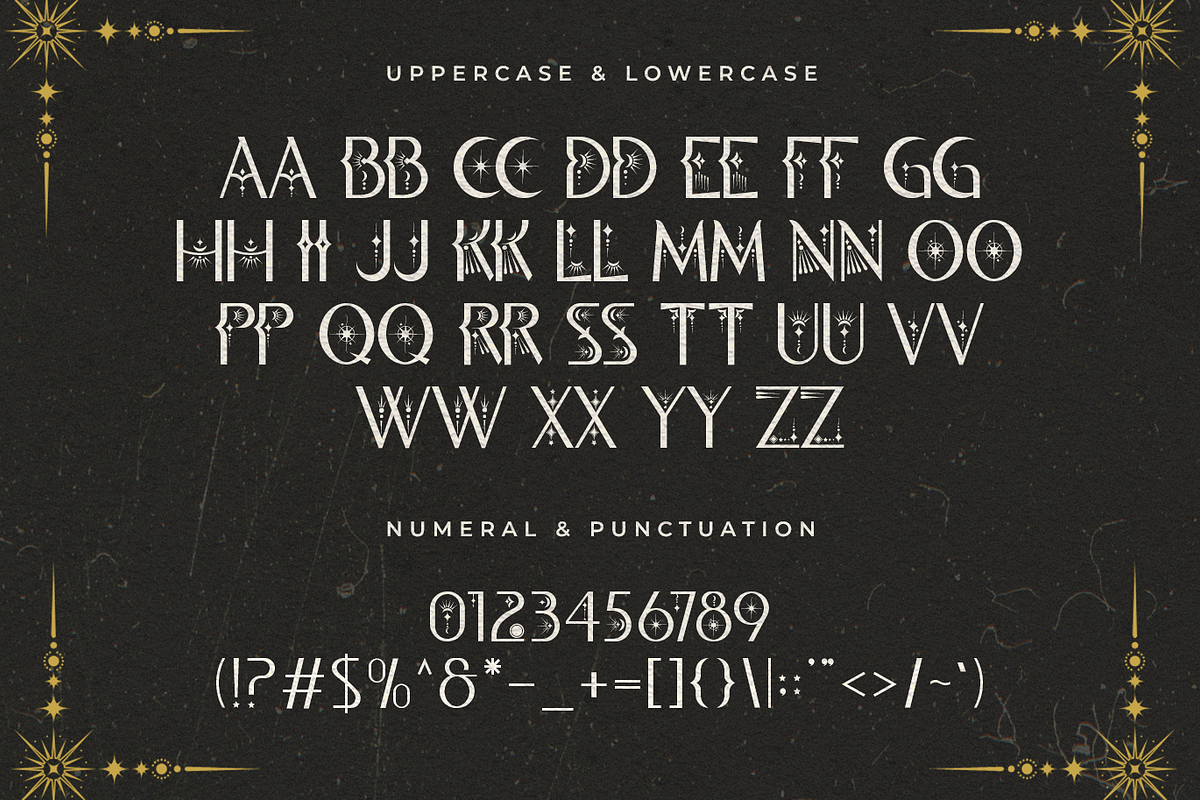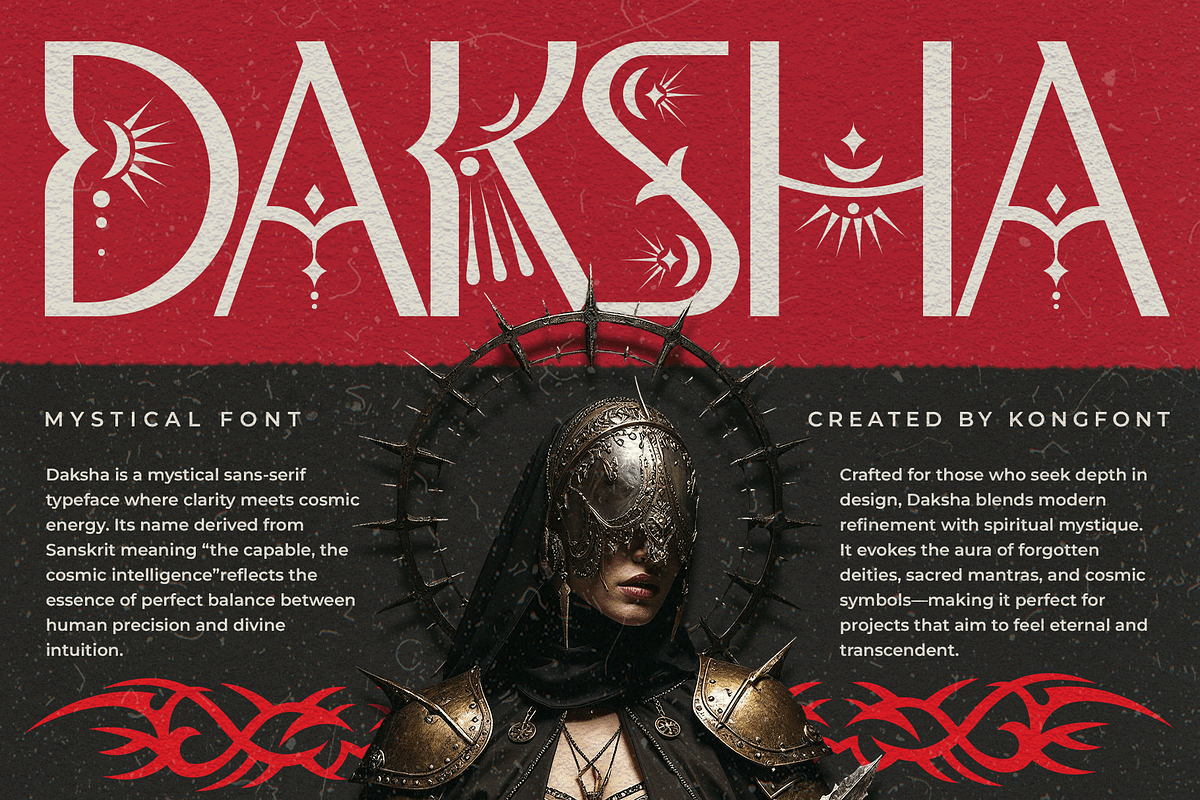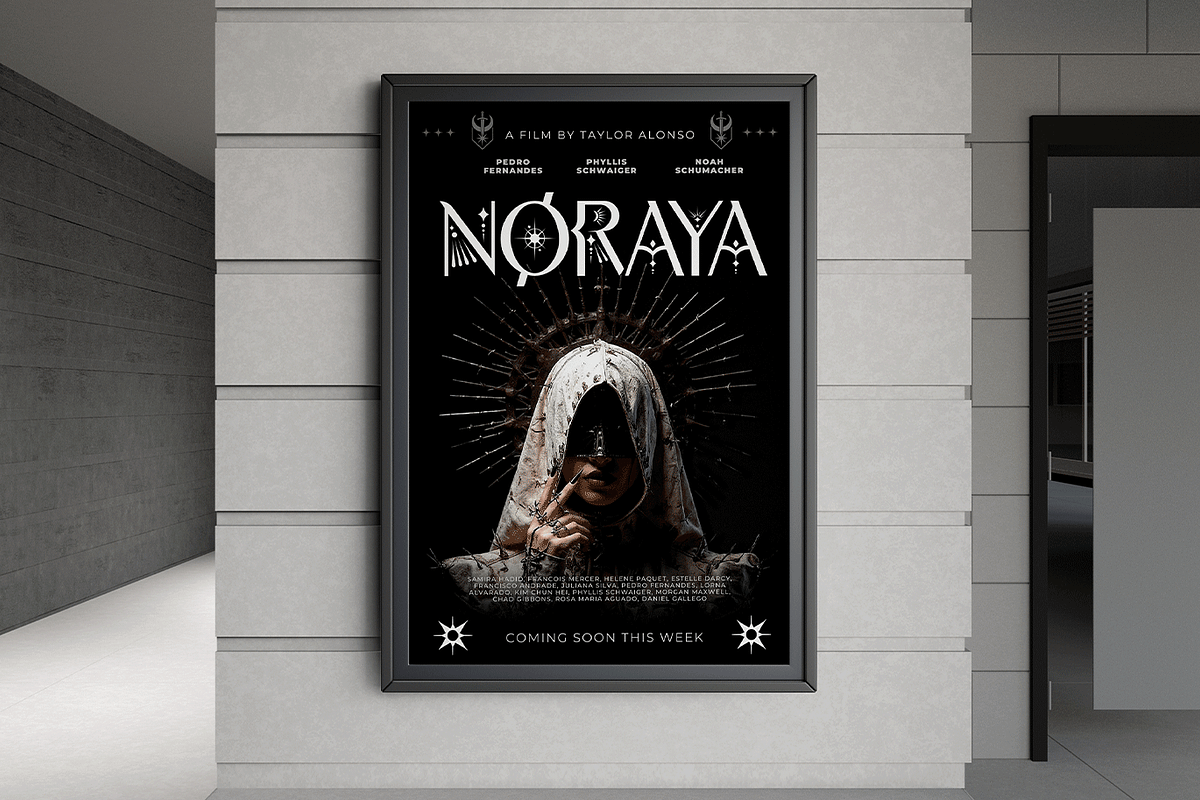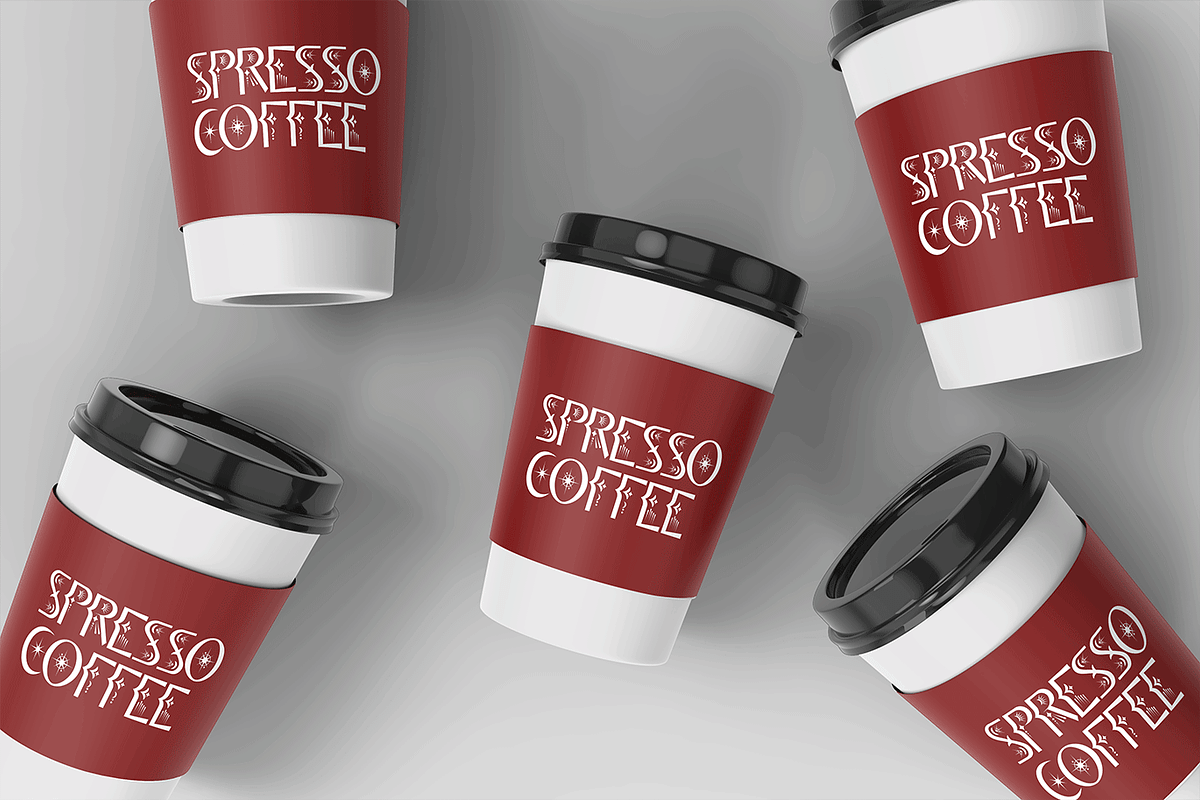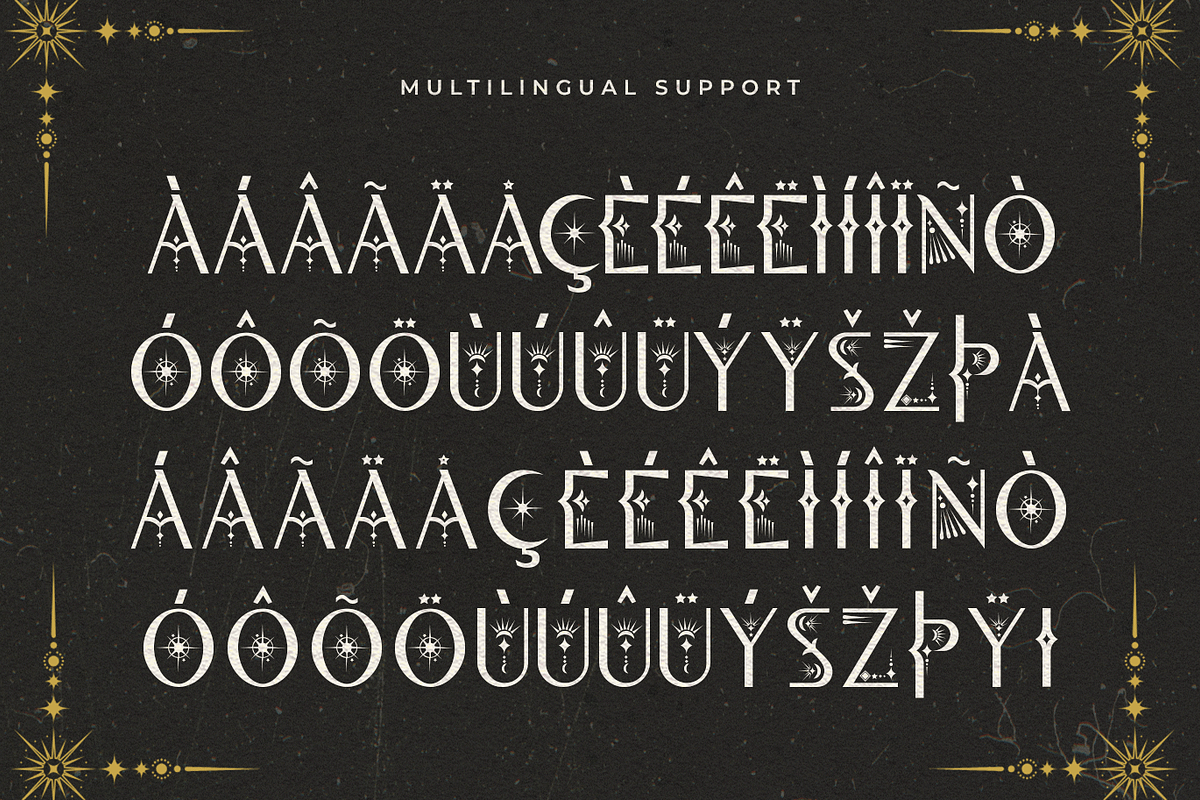
Daksha – Mystical SansSerif Typeface
Daksha – Mystical Sans Serif Typeface
Introducing Daksha, a mystical sans serif typeface that blends minimal design with an enchanting touch. Inspired by celestial forms and sacred geometry, Daksha captures a balance between modern precision and mystical allure. Each character flows with subtle curves and refined spacing, making it perfect for projects that seek a mysterious yet elegant tone.
Ideal for branding, logo design, book covers, posters, and spiritual themes, Daksha brings an ethereal presence to your creative work. Its clean structure ensures readability while its mystical essence adds a sense of wonder and sophistication.
Whether you’re designing for a modern brand or crafting visual storytelling with a magical vibe, Daksha is the perfect font to elevate your message with elegance and mystery.